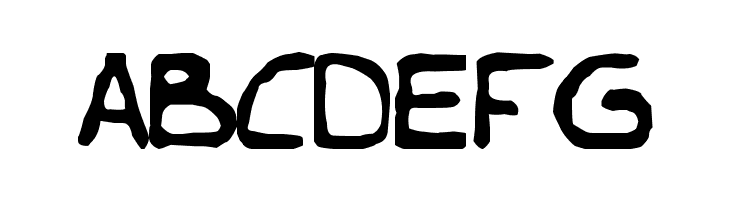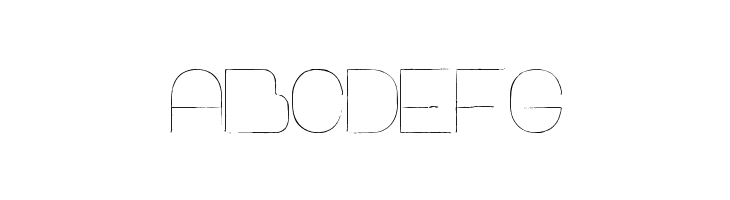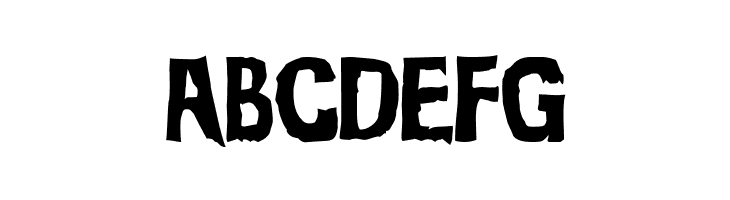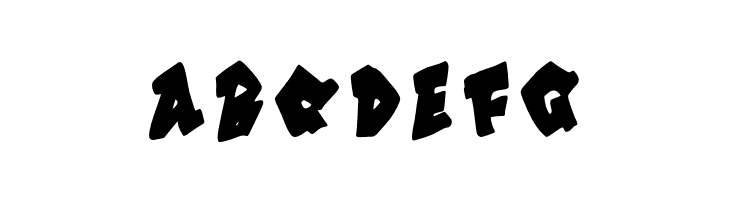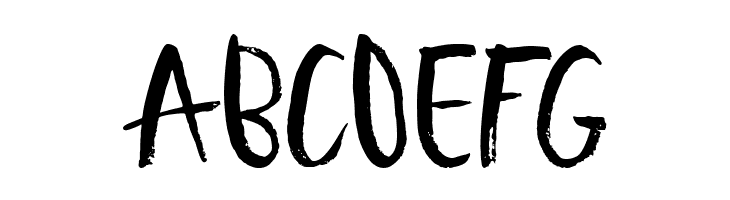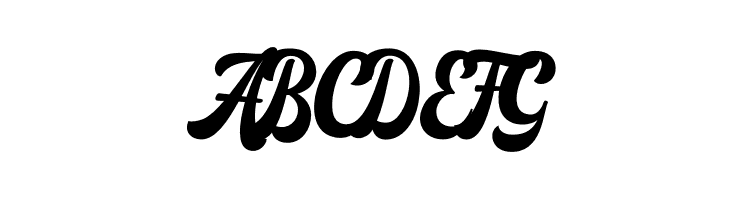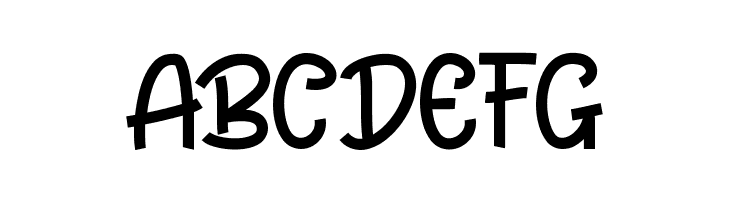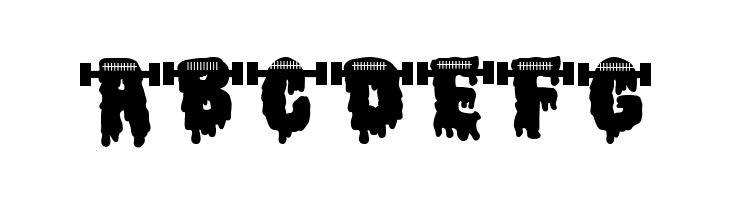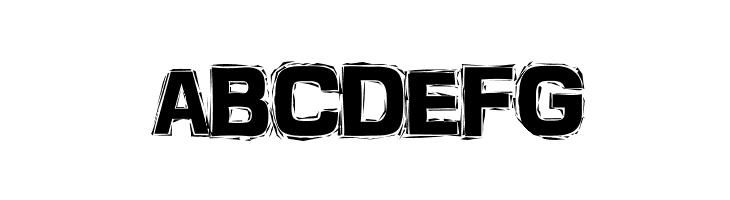
A modern, handwritten font with a fluid and elegant style.
A bold, angular font with a dynamic and edgy style.
A bold, expressive font with a hand-painted, artistic style.
A bold, cursive script with dynamic curves and elegant flourishes.
A playful, handwritten font with a bold and friendly style.
A bold, rounded, hand-drawn font with a warm and inviting style.
A bold, distressed font with a vintage industrial style.
A bold, horror-themed display font with dripping and mechanical motifs.
A bold, jagged font with a distressed, graffiti-like style.
A bold, playful font with a three-dimensional shadow effect and rounded characters.
A bold, jagged font with a classic horror theme and hand-drawn appearance.
A quirky, hand-drawn font with jagged edges and a playful style.
A minimalist, geometric font with thin, precise lines and a modern aesthetic.
A tall, jagged font with an eerie, playful horror theme.
A quirky, hand-drawn font with jagged, hollow outlines.
A bold, playful font with a spooky, whimsical style.
A modern, clean sans-serif font with excellent readability and versatility.
A bold, modern sans-serif font with clean lines and uniform stroke width.
A modern, sans-serif font with clean lines and balanced spacing.
A modern, clean sans-serif font with balanced spacing and consistent stroke width.
A playful, decorative font with facial elements in each character.
A bold, modern sans-serif font with excellent readability.
An elegant script font with ornate swashes and flowing cursive letters.
A classic calligraphic font with elegant, flowing lines and historical sophistication.